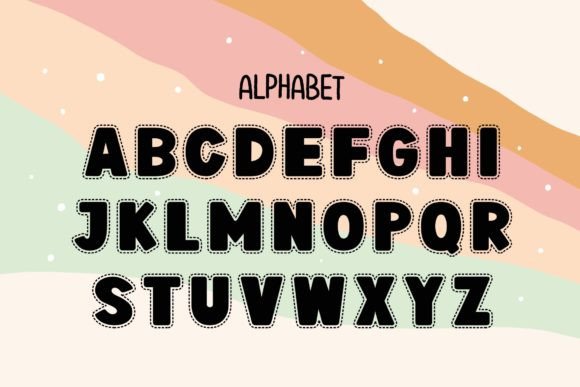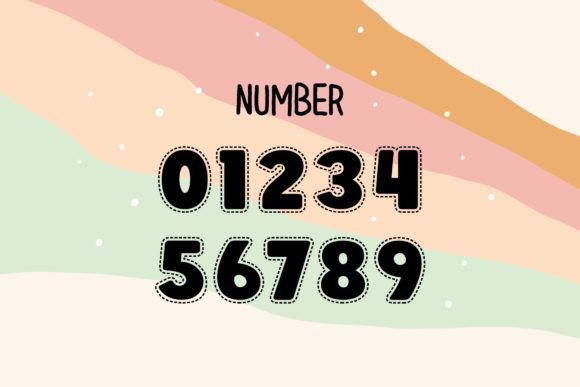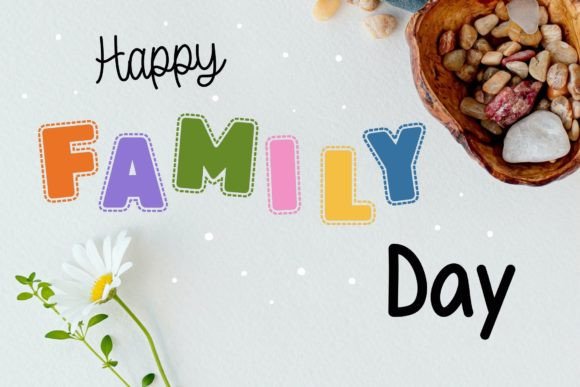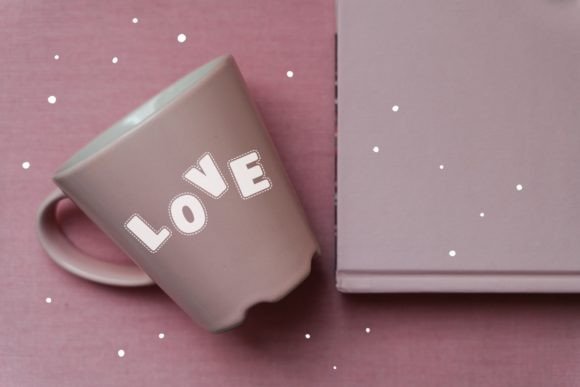
Introducing Dash Outing Font: The Perfect Playful Display Font for Your Creative Projects
Are you tired of using the same old fonts for your designs and crafts? Do you want to add a touch of playfulness and fun to your logos, branding, and social media posts? Look no further than Dash Outing Font! This delightful display font is perfect for anyone looking to add a dash of personality to their creative projects.
What is Dash Outing Font?
Dash Outing Font is a fun and playful display font designed to bring a smile to your face. With its unique and quirky style, this font is sure to grab attention and make your designs stand out from the crowd. Whether you’re a designer, crafter, or DIY enthusiast, Dash Outing Font is the perfect fit for all your creative projects.
Features of Dash Outing Font
- Playful and Fun Style: Dash Outing Font has a unique and playful style that’s perfect for adding a touch of whimsy to your designs.
- Display Font: This font is designed specifically for display purposes, making it perfect for headlines, titles, and logos.
- High-Quality Design: Dash Outing Font is designed with high-quality vectors, ensuring that it looks great in any size or resolution.
Uses of Dash Outing Font
Dash Outing Font is a versatile font that can be used for a wide range of creative projects, including:
- Logos and Branding: Add a touch of playfulness to your logos and branding with Dash Outing Font.
- Social Media Posts: Make your social media posts stand out with this fun and playful font.
- Crafty DIY Projects: Add a personal touch to your crafty DIY projects, such as handmade cards, gift tags, and more.
- Signs and Banners: Use Dash Outing Font to create eye-catching signs and banners for parties, events, and more.
Why Choose Dash Outing Font?
With so many fonts to choose from, why should you choose Dash Outing Font? Here are just a few reasons:
- Unique Style: Dash Outing Font has a unique and playful style that’s sure to grab attention.
- High-Quality Design: This font is designed with high-quality vectors, ensuring that it looks great in any size or resolution.
Tips for Using Dash Outing Font
Here are a few tips for getting the most out of Dash Outing Font:
- Use it Sparingly: Because Dash Outing Font is a display font, it’s best to use it sparingly to add emphasis to your designs.
- Pair it with Other Fonts: Pair Dash Outing Font with other fonts to create a unique and interesting contrast.
Dash Outing Font is a fun and playful display font that’s perfect for adding a touch of personality to your creative projects. With its unique style, high-quality design, and ease of use, this font is sure to become a favorite among designers and crafters. So why wait? Download Dash Outing Font today and start adding a dash of playfulness to your designs!